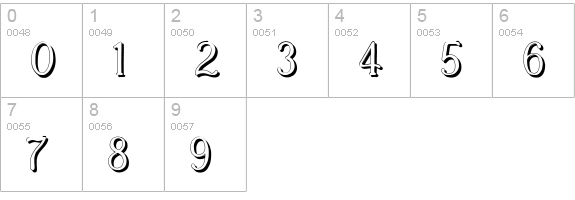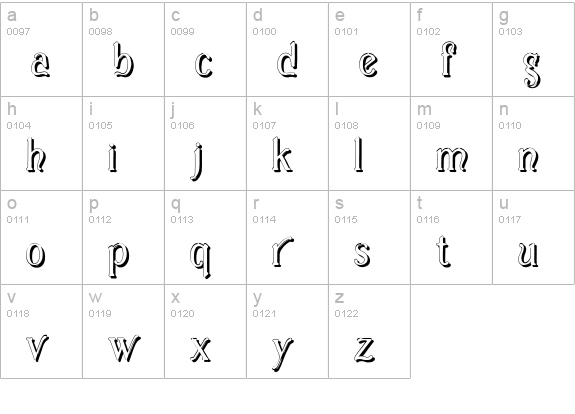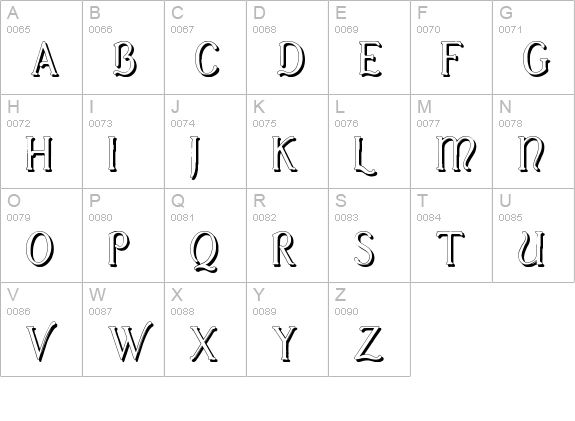
Casua_Shadow font is a stylish and versatile typeface that exudes a sense of mystery and elegance. With its unique shadow effect, this font adds a touch of sophistication to any design project. The letters are bold and eye-catching, making them perfect for headlines, logos, and other creative endeavors. What makes Casua_Shadow font even more appealing is that it is completely free to download at FontsMarket.com. This means that you can enhance your projects with this stunning font without any cost. Whether you're working on a personal project or a professional design, Casua_Shadow font is sure to make a statement and leave a lasting impression. Download it today and take your designs to the next level!